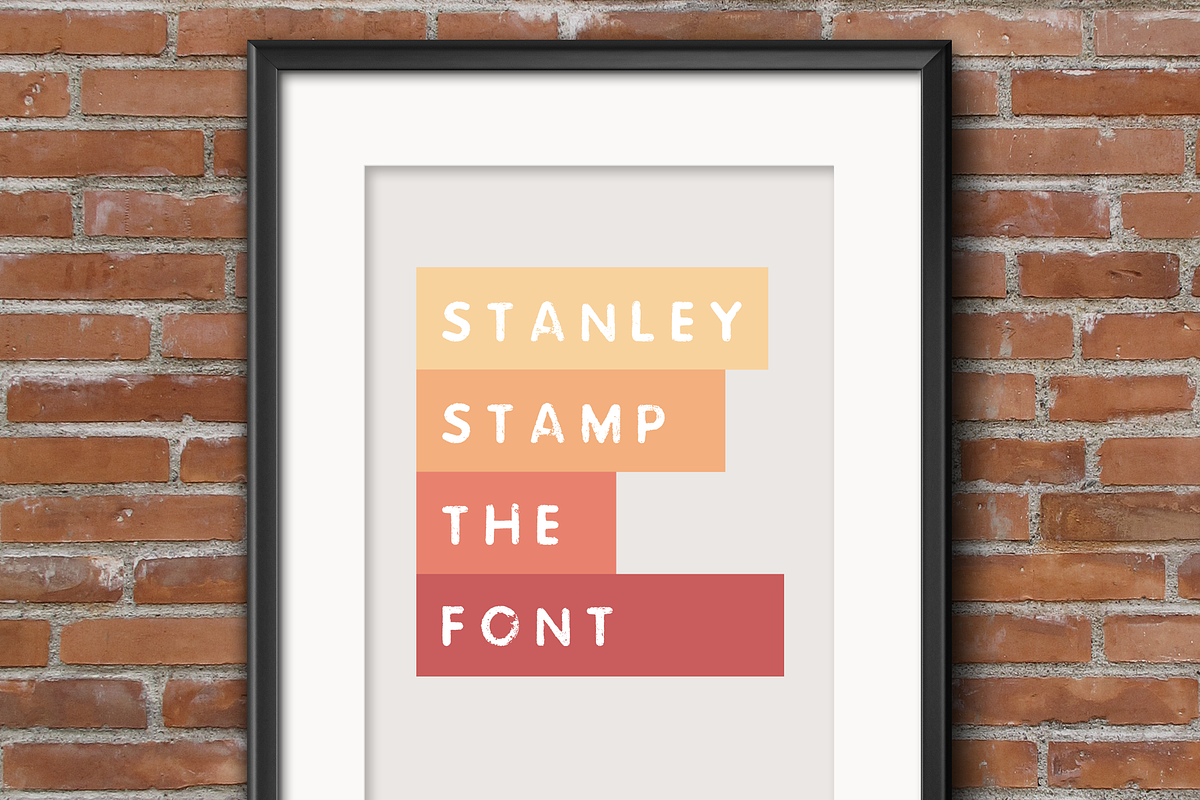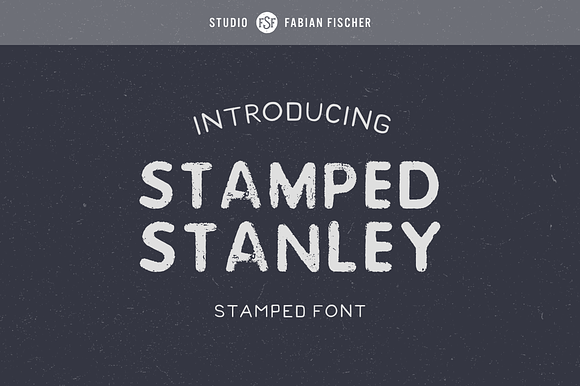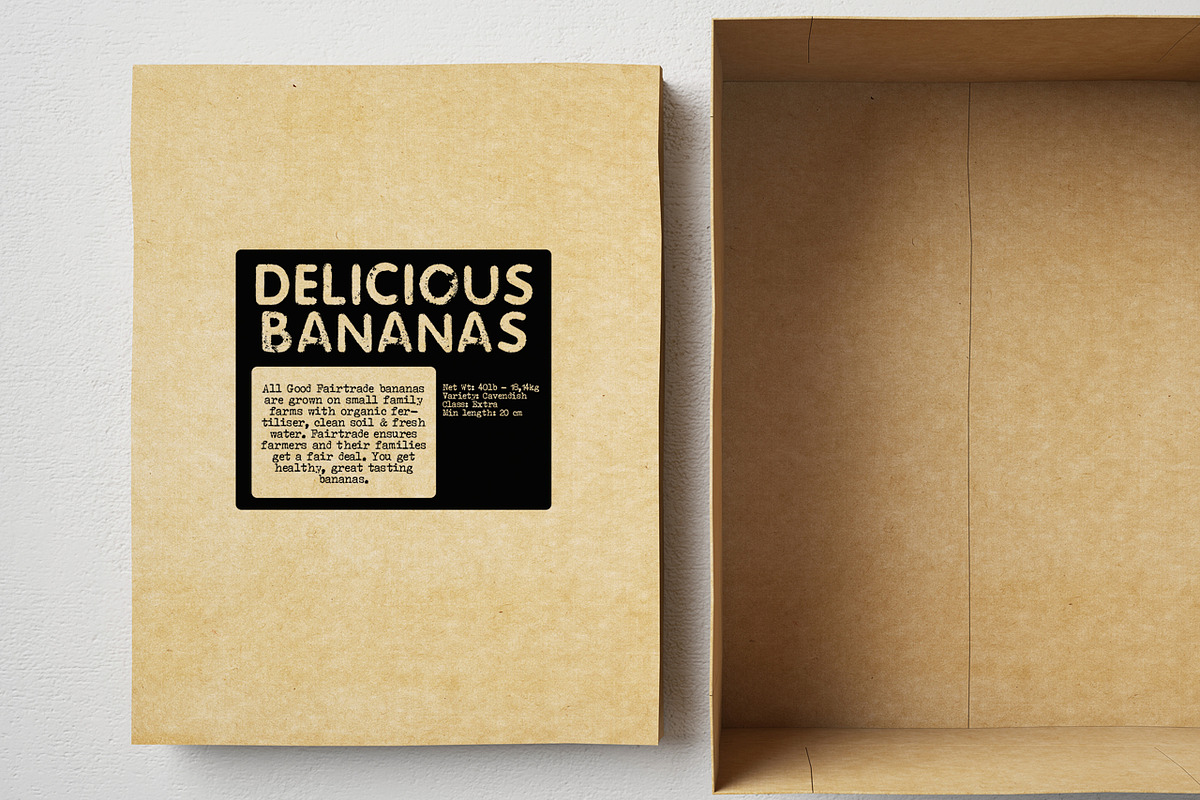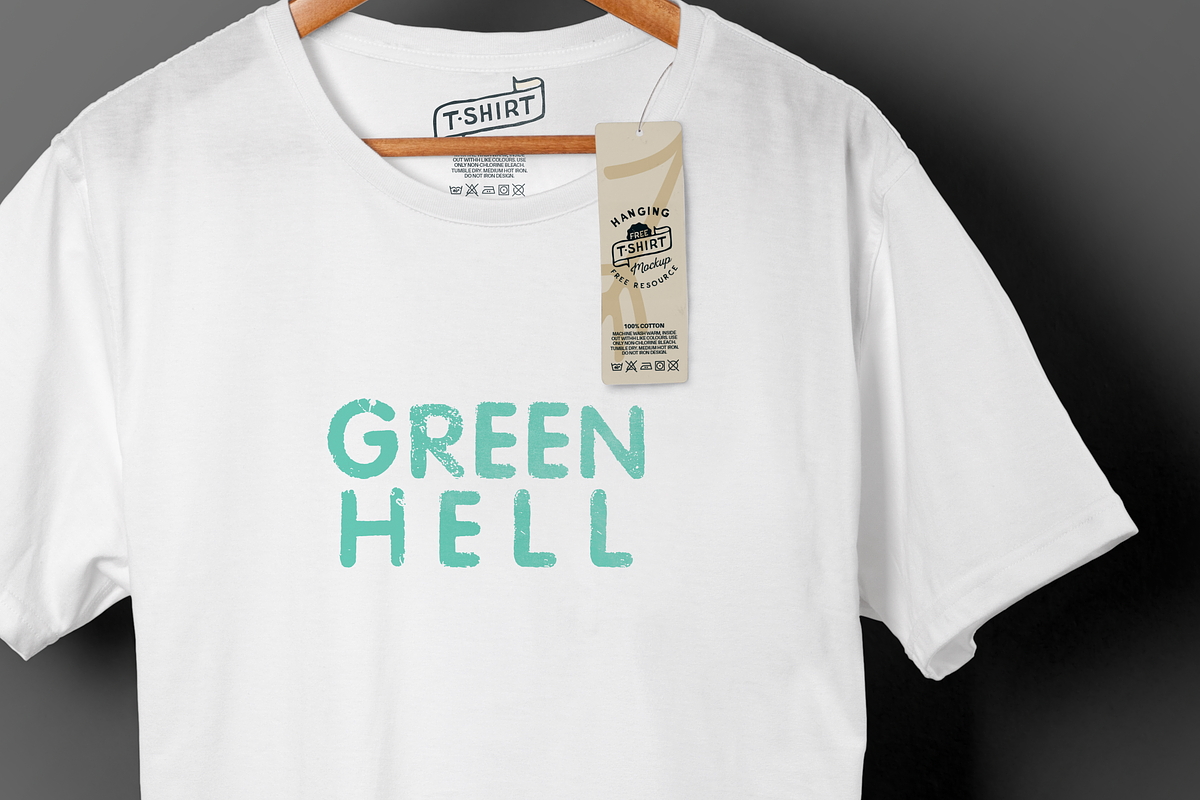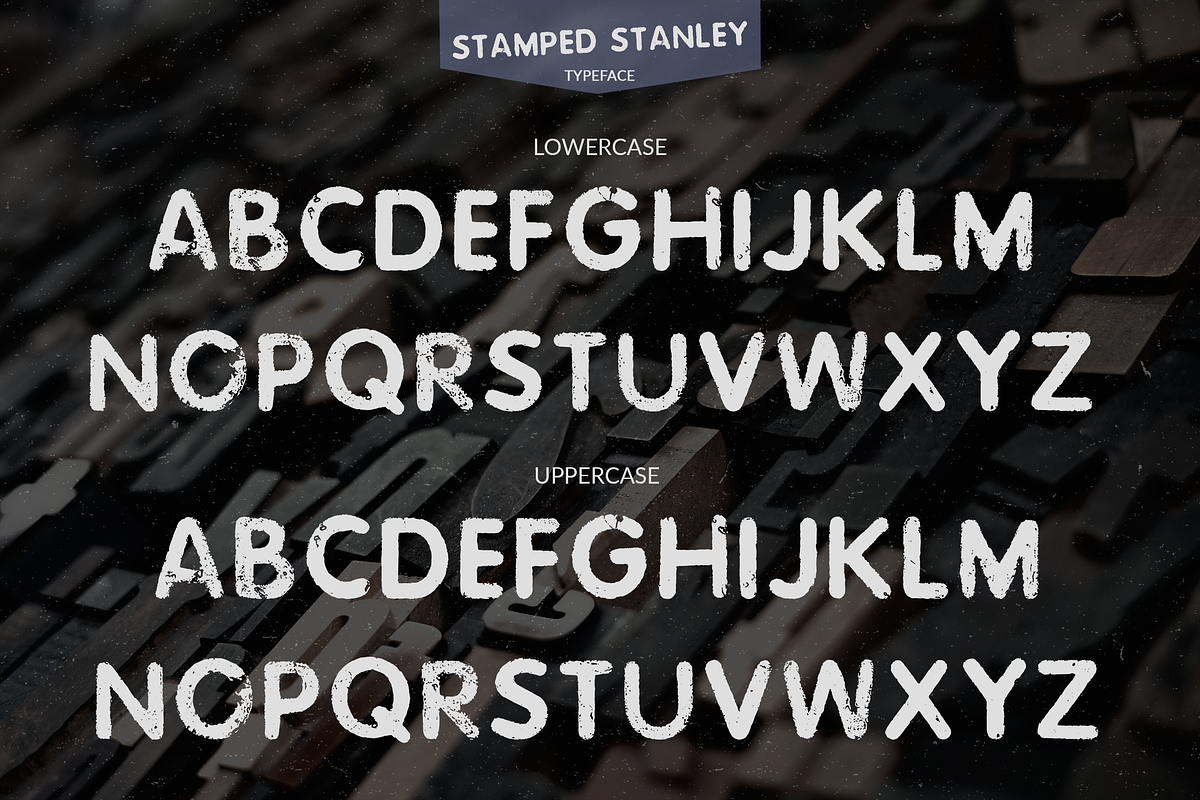
Stamped Stanley - Font
Stamped Stanley is a simple font in bold style which was generated out of stamped letters. Designed are the uppercase letters for a fancy handcrafted look. It works good for rustic or vintage style work especially in the advertising industry. This will look very nice on book covers, posters or headers in magazines. Great for getting that handcrafted look you've been looking for! All this without your stamp pad!
- Designed are the uppercase letters for a fancy handcrafted look.